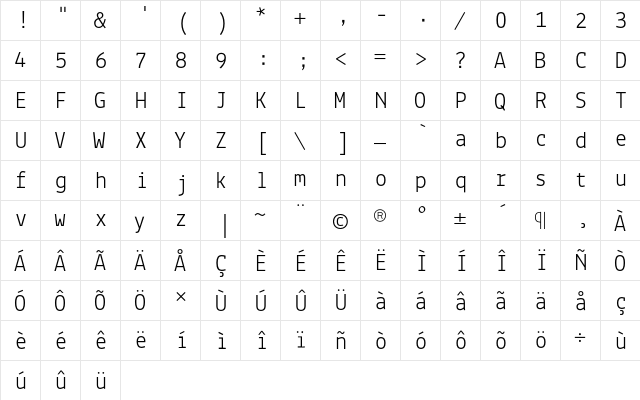
Lekton04 Thin Font Preview
Lekton04 Thin
Design Context for Lekton04 Typeface
Lekton04 is a composed and adaptable typeface that performs quietly and consistently across a wide range of design contexts. The delicate stroke weight brings airiness and refinement to layouts.